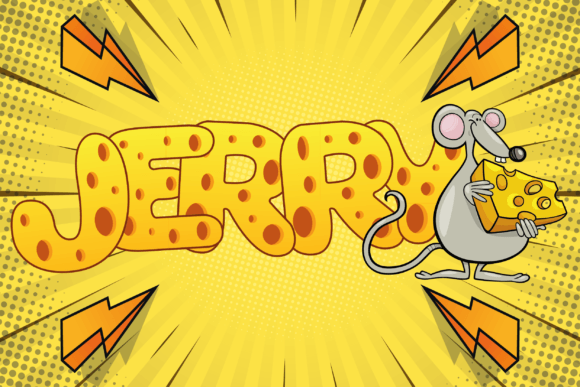
Introducing Jerry Font, the cheesy delight that will melt your design woes away! This adorable decorative font is the perfect choice for adding a touch of playful charm to your projects.
Crafted with love by the talented Rafdil, Jerry Font embodies the essence of old-style fonts with its charming curves and playful flourishes. Each character exudes a friendly and authentic personality, ensuring your designs convey a sense of warmth and nostalgia.
Whether you're creating logos, branding materials, packaging designs, or social media graphics, Jerry Font will make your creations stand out from the crowd. Its versatility allows you to experiment with different styles and themes, from whimsical and lighthearted to elegant and sophisticated.
Immerse yourself in the cheesy goodness of Jerry Font and let your imagination run wild! This font is not just a typeface; it's a gateway to a world of endless creative possibilities. Download it today and sprinkle some extra cuteness onto your design adventures!